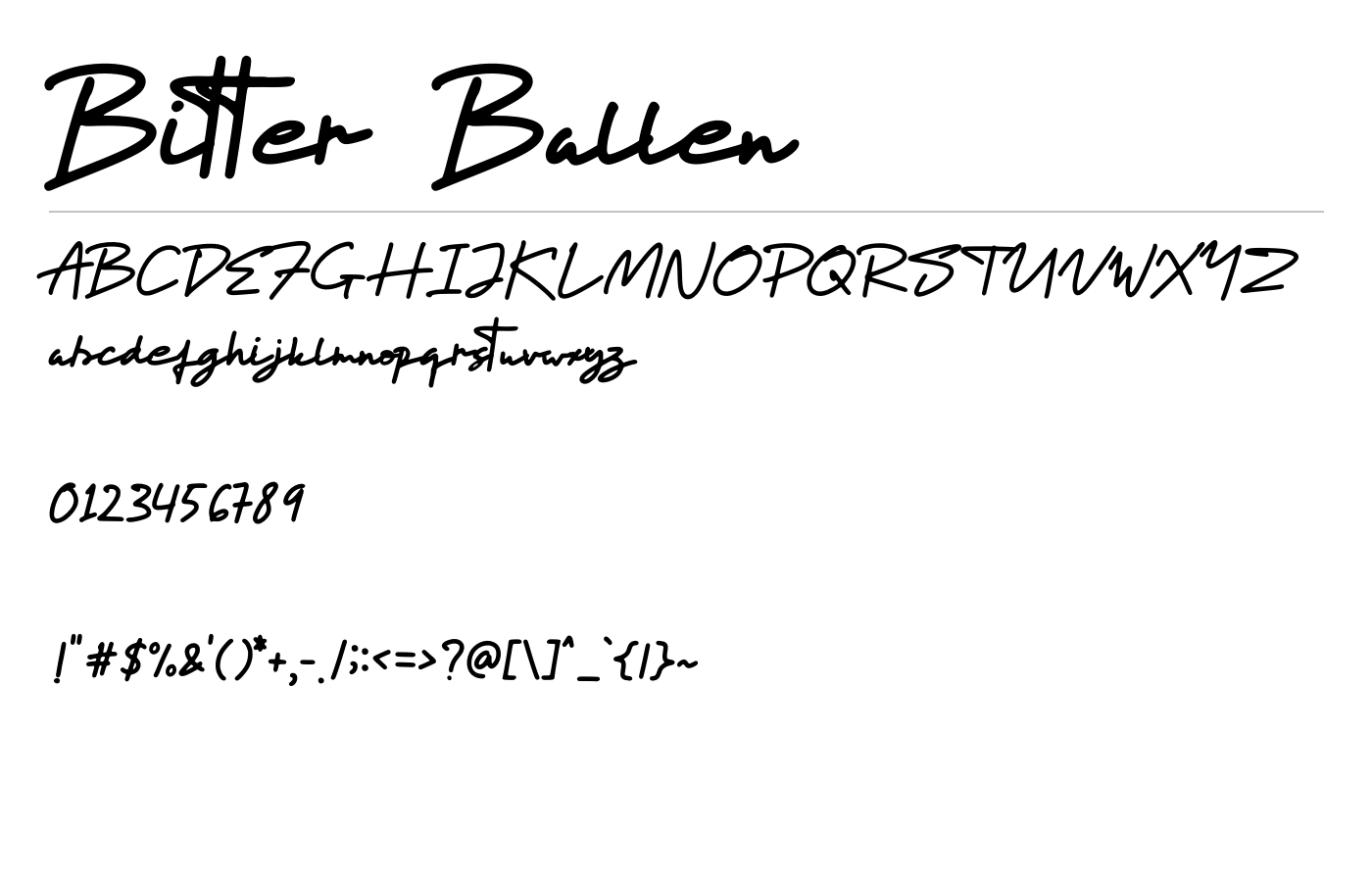
Bitter Ballen is a lively and casual script font that mimics natural handwriting with a playful, slightly irregular style. Its moderate weight and flowing letterforms make it feel approachable and personal, perfect for projects that want to convey friendliness and creativity. This font works well for informal branding, social media graphics, and invitations where a handwritten touch adds warmth and charm.
Bitter Ballen Font
About Bitter Ballen Font
| Font family | Bitter Ballen Font |
| Designer | Suheri Anto |